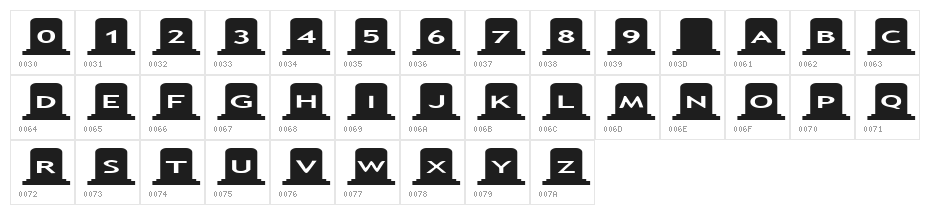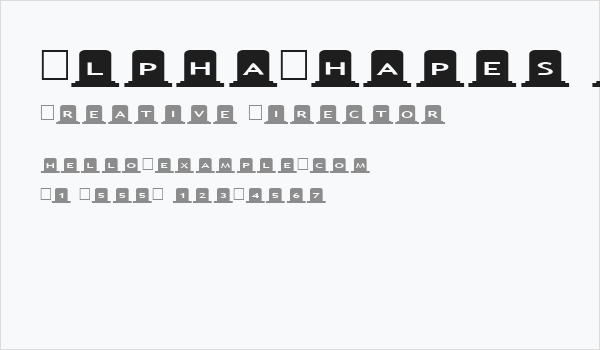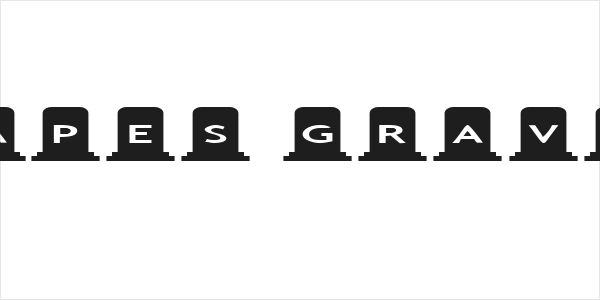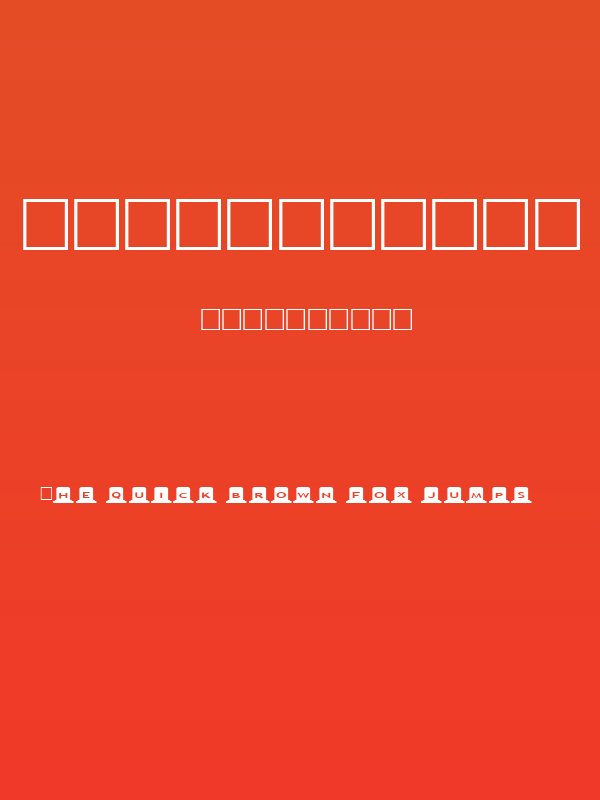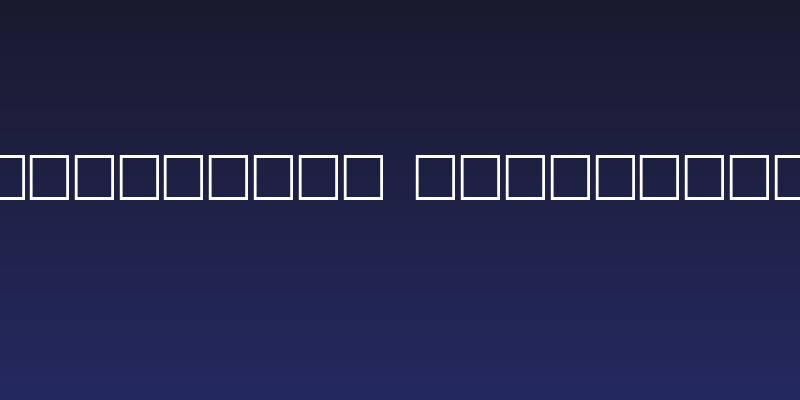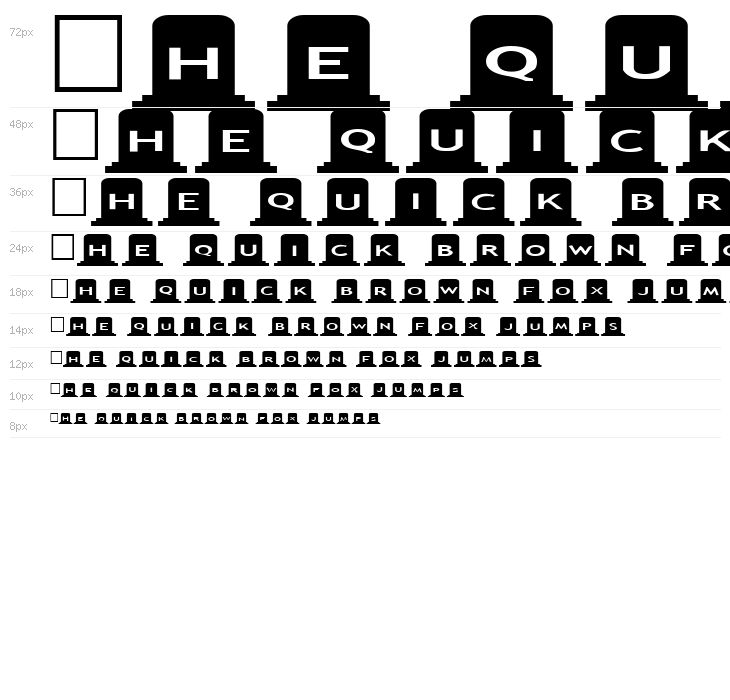
AlphaShapes gravestones Font
AlphaShapes gravestones Description
This font features a unique and thematic design where each character is embedded within a gravestone shape. The uppercase letters A-Z and numbers 0-9 are all styled to resemble gravestones, giving the font a distinct and eerie appearance. The characters are bold and have a strong presence, making them suitable for thematic projects. The overall design is decorative and playful, with a touch of gothic influence, perfect for Halloween or horror-themed designs. The font does not include lowercase letters or special characters, focusing solely on uppercase and numeric characters.
| Proposed Projects | Perfect for Halloween invitations, horror movie posters, themed party decorations, or any project requiring a spooky or gothic aesthetic. |